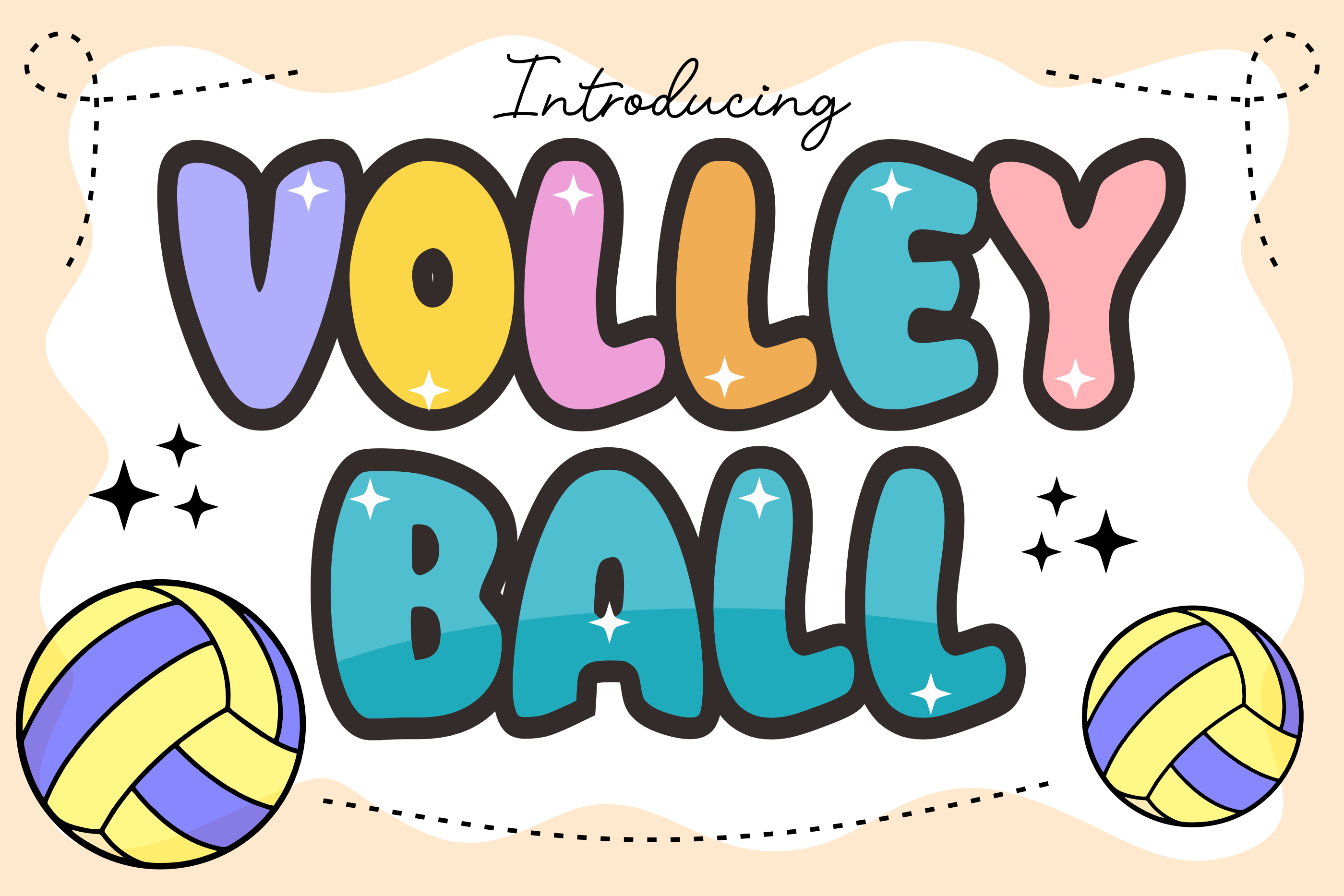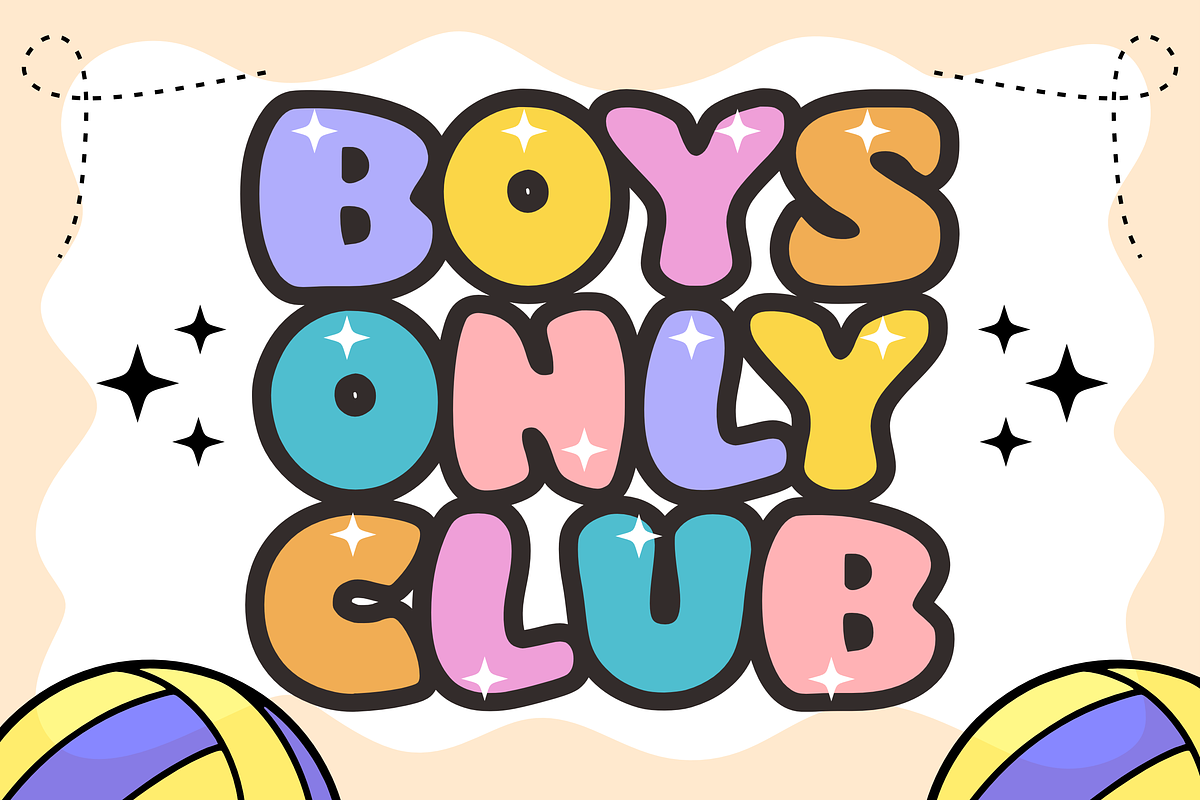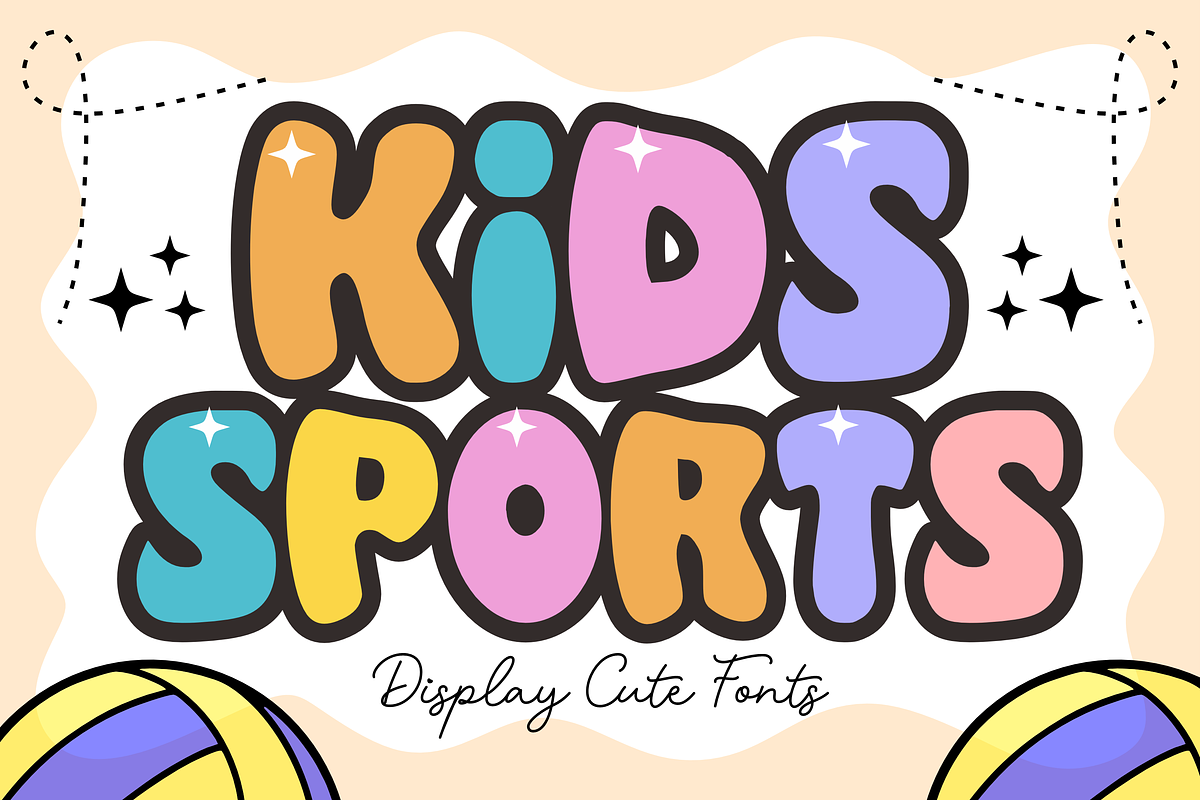
Volley Ball - Cartoon Font Types
Introducing VolleyBall – an enchanting children’s font that exudes love for creativity and the extraordinary. This is not just a typeface, it’s a delightful companion for your whimsical children’s sports projects, adding a sprinkling of magic with ease. The exuberant outlines and irresistible allure of VolleyBall makes a striking impact on headlines or posters, converting any mundane work into a carnival of joy. From commemorating a sports day to infusing charm into a party, this splendid font effortlessly brightens up every occasion.